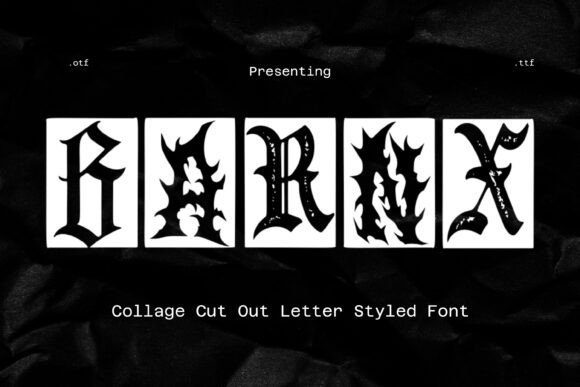
Unleash Your Inner Rebel: The Bold Story of Barnx Font
Do you remember that moment when you’re brainstorming ideas for a project and you stumble upon a font that perfectly captures the essence of your creative vision? For designers, finding the right font can be a game-changer. It’s the spark that ignites the entire design process, setting the tone for a project’s overall aesthetic and mood. For many creatives, that spark is often found in the eclectic and bold Barnx Font.
Barnx Font is a rebellious typeface that defies traditional typography rules, blending sharp blackletter forms with decorative flourishes, dramatic curves, and textured details. This unique mix-and-match approach creates a sense of controlled chaos, making it a valuable tool for designers looking to push boundaries and stand out from the crowd.
Barnx Font Key Features
- Unique Characteristics: Barnx Font features a unique blend of modern and rustic elements, making it ideal for creating a distinctive and eye-catching visual identity.
- Character Set: The font includes a comprehensive character set, including Latin, Cyrillic, and Greek alphabets, as well as punctuation and special characters.
Barnx Font Review
I recently had the chance to work with Barnx Font, and I’m excited to share my honest review with you. Here are my thoughts on what works well and what doesn’t.
- Unique Character**: Barnx Font has a distinctive and quirky character that can add a lot of personality to your design. It’s perfect for projects that need a bit of whimsy and charm.
- Highly Legible**: Despite its unusual shape, Barnx Font is surprisingly easy to read, even at small sizes. This makes it a great choice for body text or captions.
- Great for Hand-Drawn Look**: If you’re going for a hand-drawn or vintage look, Barnx Font is a great choice. It has a beautiful, organic feel that’s perfect for projects that need a bit of warmth and character.
- Not Suitable for Formal Text**: While Barnx Font is great for body text or captions, it’s not the best choice for formal or technical text. Its quirky character can make it difficult to read in long blocks of text.
- Limited Font Sizes**: Barnx Font is best suited for smaller font sizes. At larger sizes, it can start to look a bit blocky and clumsy.
Overall, I think Barnx Font is a great addition to any designer’s toolkit. It’s perfect for projects that need a bit of personality and whimsy, and it’s surprisingly easy to read. However, it’s not the best choice for formal or technical text, and it’s limited to smaller font sizes. With a bit of caution and planning, Barnx Font can be a valuable asset for any designer.
Tips for Getting the Most Out of Barnx Font
Use Barnx font to create a vintage or distressed look in your designs.
Combine Barnx font with other fonts to create a unique and eye-catching typography.
Use Barnx font for titles, headings, and other attention-grabbing text elements.
Barnx font is perfect for:
Creating vintage-inspired designs.
Adding a distressed look to your typography.
Creating eye-catching titles and headings.